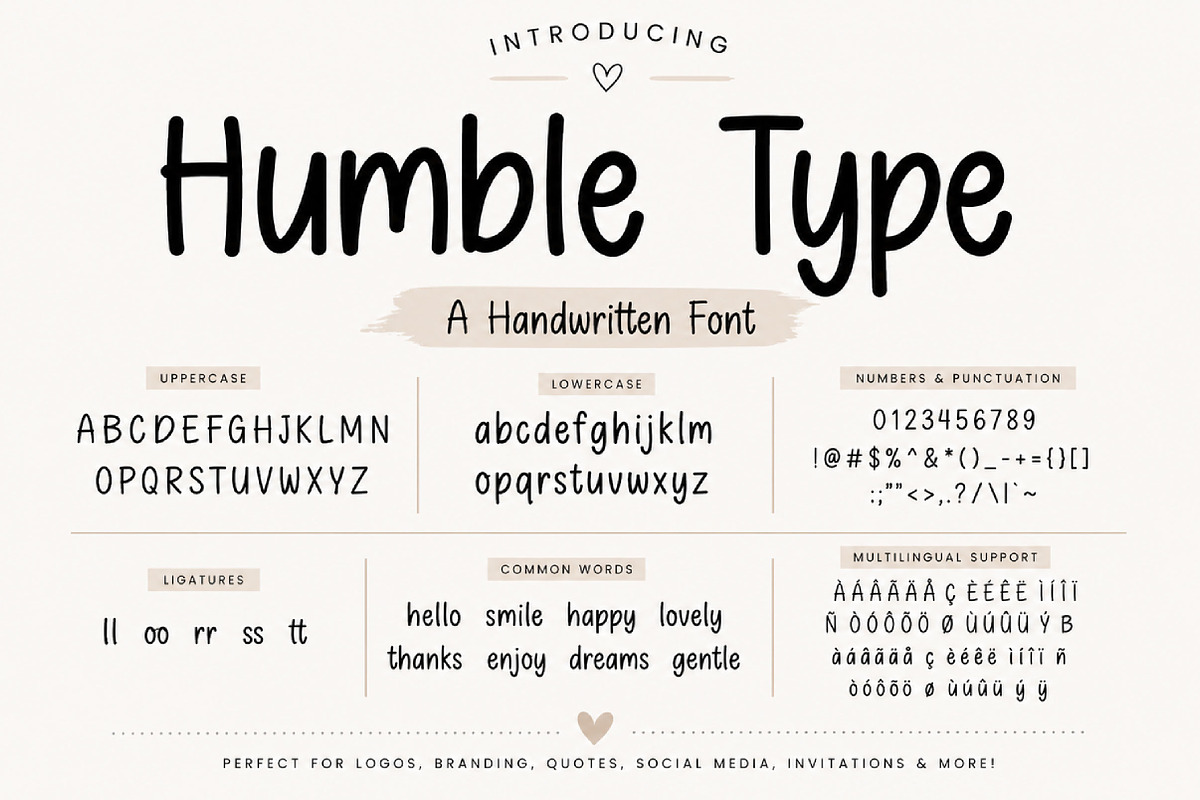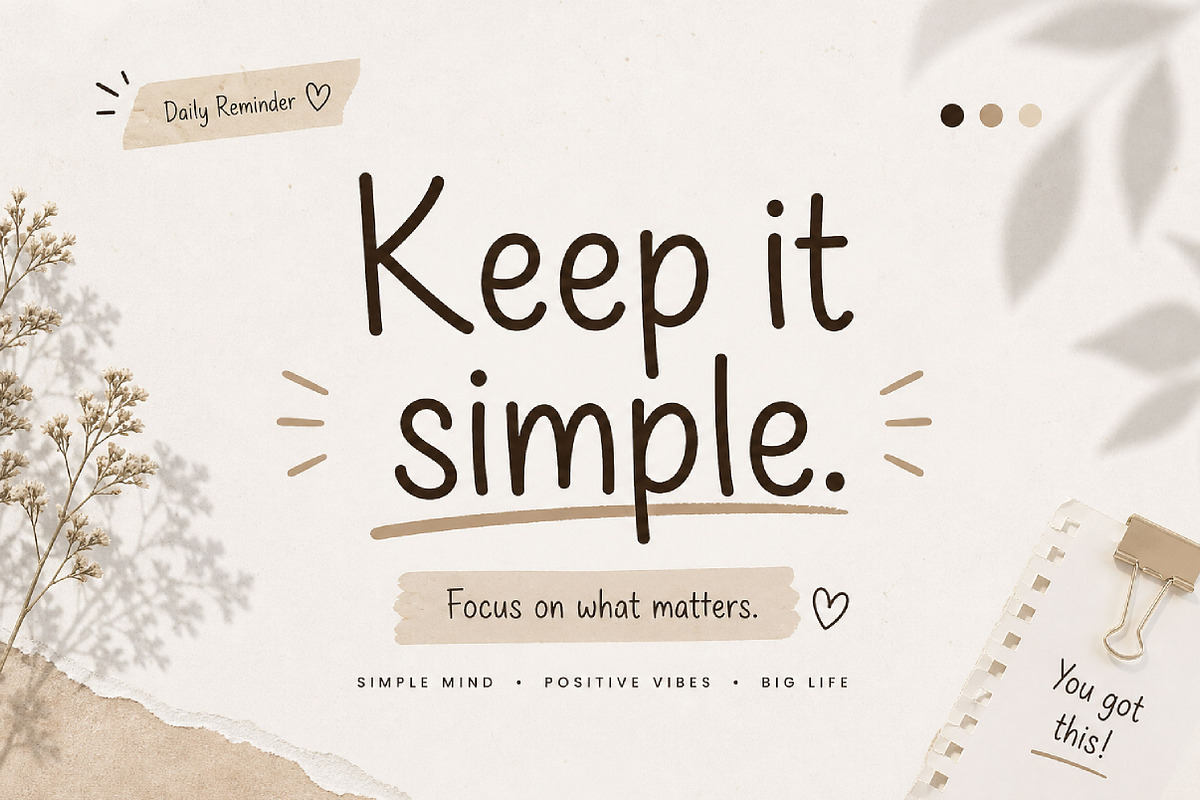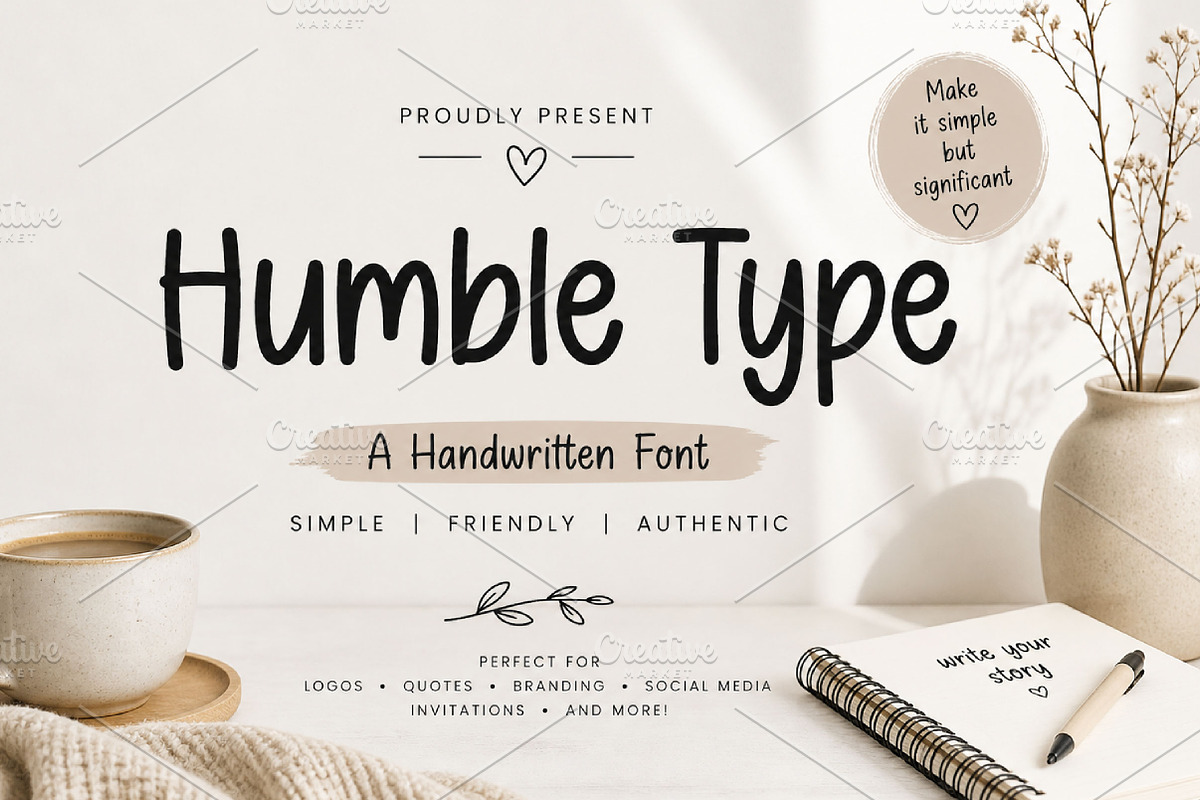
Humble Type
Humble Type – Clean Handwritten Display Font
Humble Type is a clean, soft, and friendly handwritten font, perfect for branding, packaging, social media, logos, and modern creative projects.
Humble Type is a simple and elegant handwritten display font designed to bring warmth, clarity, and personality into your designs. With its smooth strokes, rounded letterforms, and minimal style, this font creates a clean and approachable look that feels both modern and versatile.
Its balanced and friendly character makes Humble Type perfect for projects that need a natural and professional touch. Whether you are designing branding materials, logos, product packaging, social media graphics, invitations, posters, or quotes, this font helps your typography stand out in a subtle yet memorable way.
The clean handwritten style ensures readability while maintaining a personal and handcrafted feel. Suitable for both print and digital use, Humble Type is a great choice for designers who want a font that feels modern, soft, and effortlessly stylish.
Branding and logos
Product packaging
Invitations and greeting cards
Posters and flyers
Website headers
Quotes and typography
Lifestyle and blog designs
Creative display projects
Minimalist design concepts
Uppercase letters
Lowercase letters
Clean handwritten style
Smooth and rounded shapes
Friendly and modern look
Perfect for display use